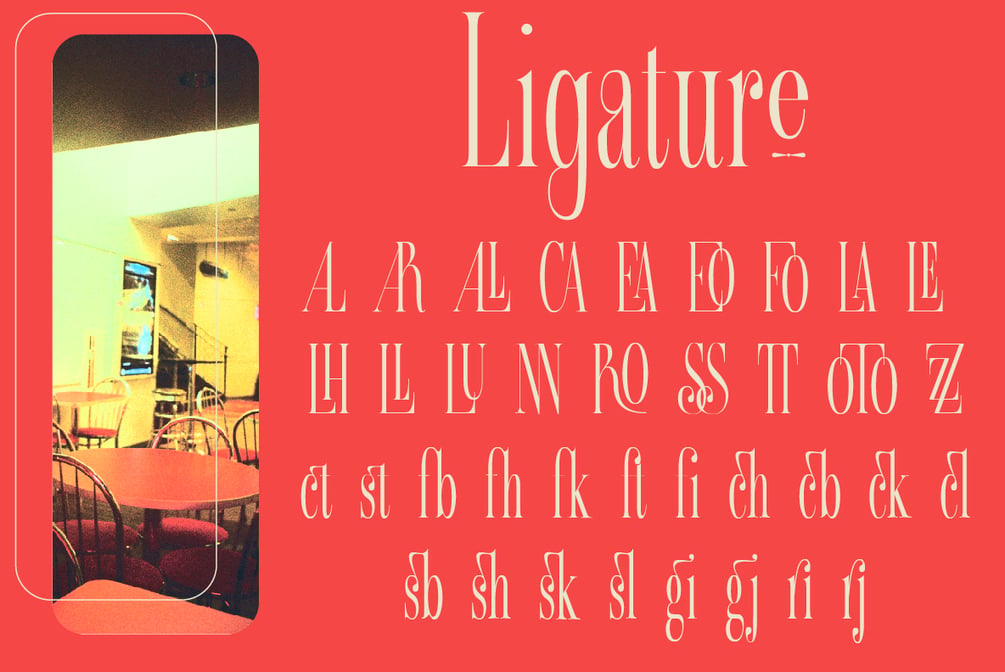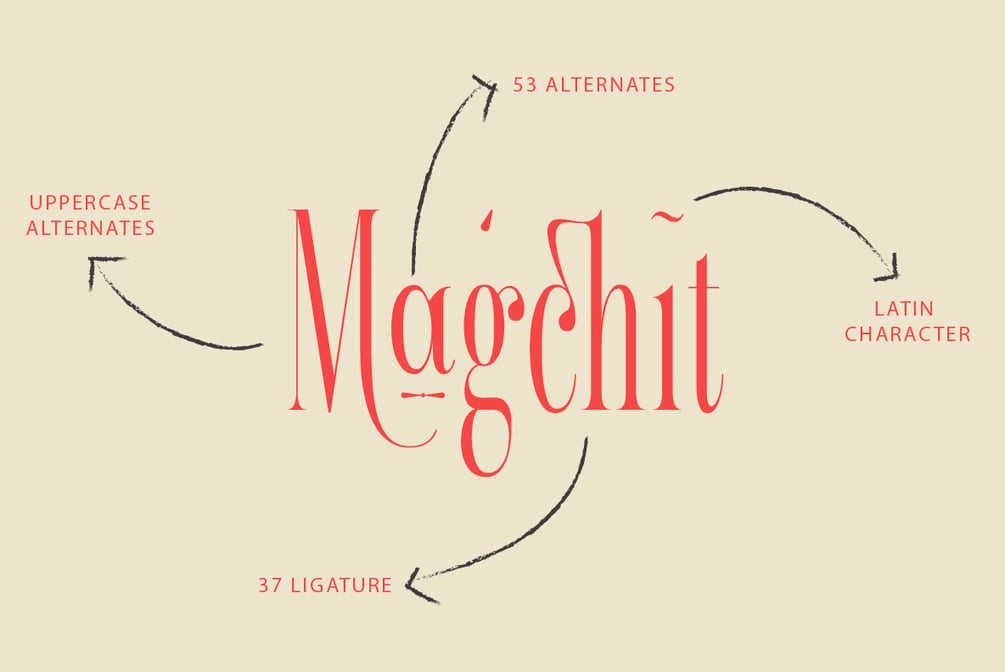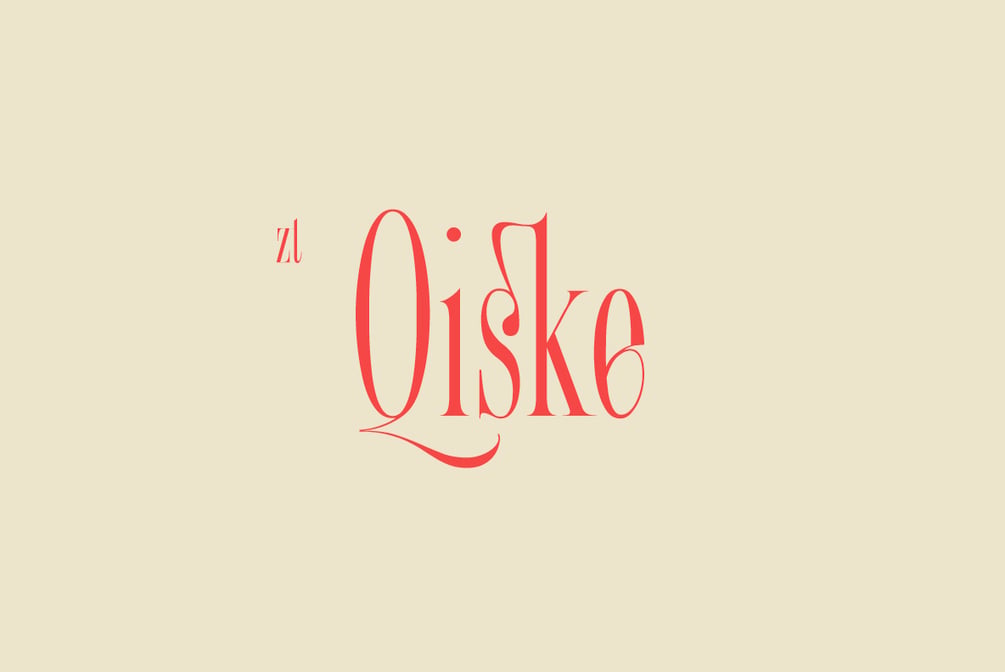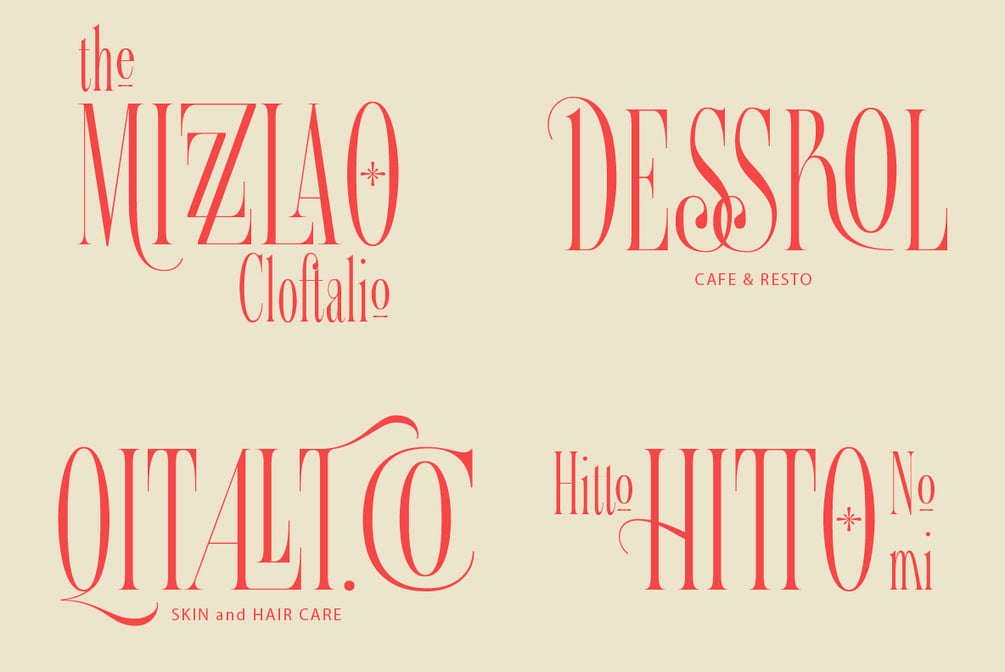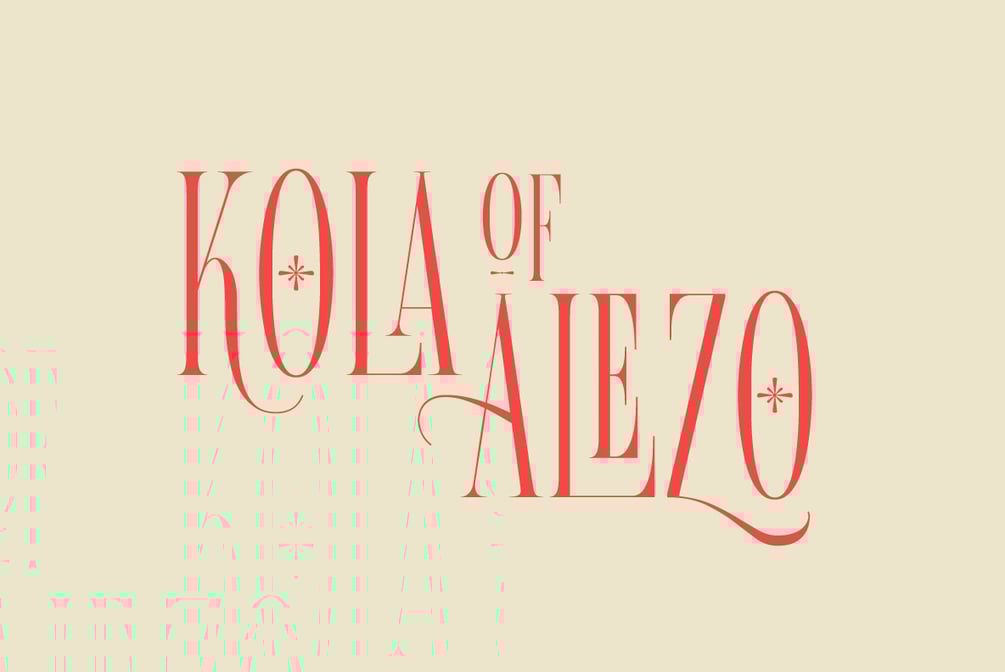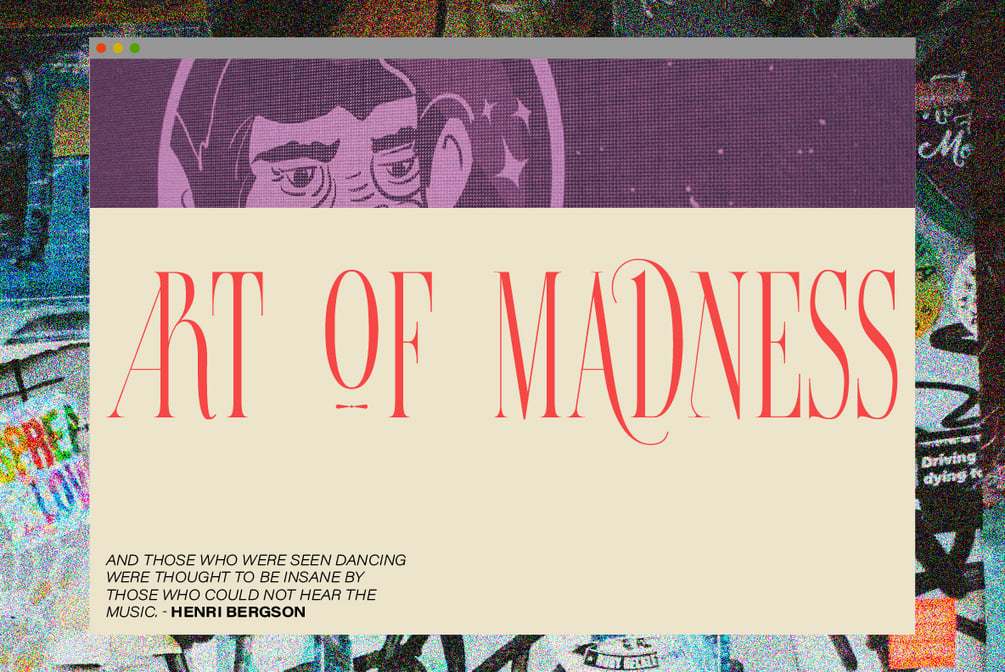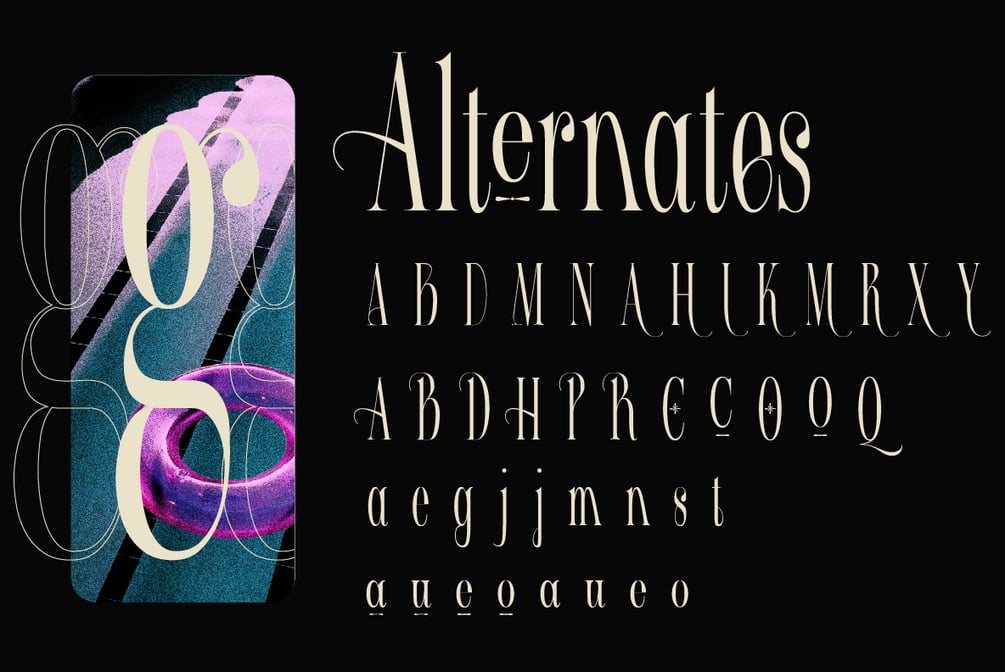
ZT Qiske
Qiske is a serif display font with strong characteristics and Qiske is full of modern vibes, with its binders, special alternate glyphs and soft Curves. The high contrast between thick and thin strokes gives Qiske a very stylish look and is ideal for headlines, headers, logos, labels, packaging, postcards, presentations, magazines, invitations, etc.
For ligature lovers, Qiske is made to be Soft and intertwined to create a stunning display of its subtle hypnotic curves, making it the perfect choice for impactful editorial layouts and strong feminine creations.
FEATURES
- 510 Glyphs
- Uppercase & lowercase, numbers
- Old-style figures
- 37 Discretionary Ligatures & Standard ligatures,
- 53 Alternates (Uppercase & lowercase)
- Symbols, punctuation